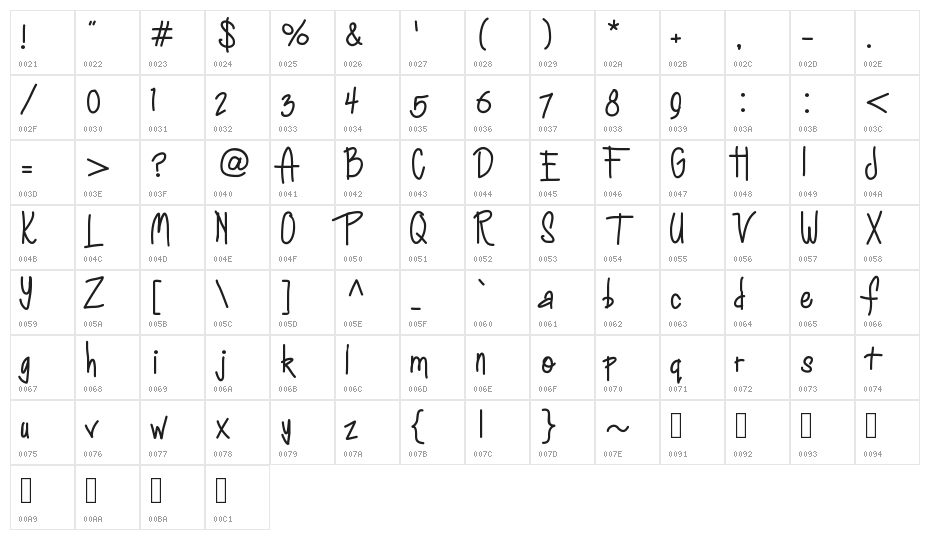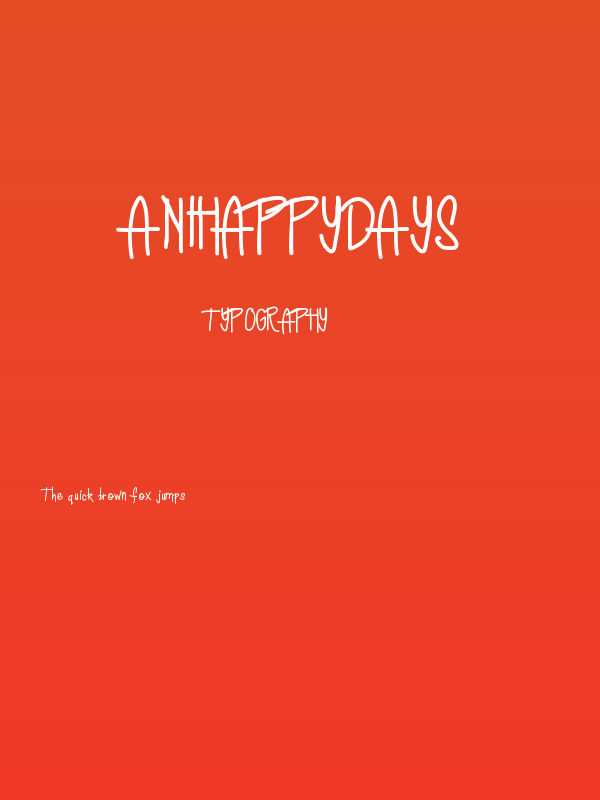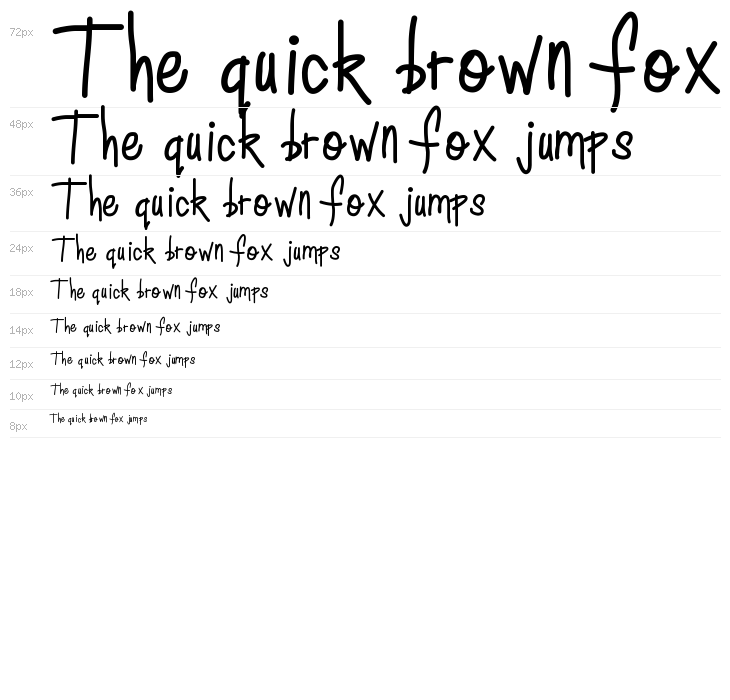
AniHappyDays Font
AniHappyDays Description
This playful and whimsical font features a handwritten style with a casual and friendly appearance. The letters are slightly irregular, giving it a personal touch that mimics natural handwriting. The strokes are smooth and rounded, with a consistent medium weight throughout. The uppercase and lowercase letters are well-balanced, and the numbers and special characters maintain the same lively character. This font is perfect for projects that require a fun and approachable feel.
| Proposed Projects | Ideal for greeting cards, children's books, playful branding, and social media graphics. |